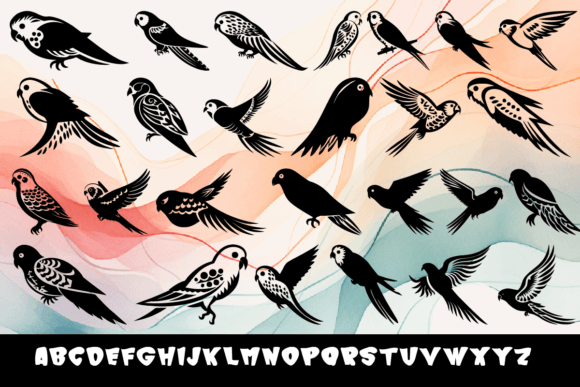
Cute Bird Font: Add a Delightful Touch to Your Designs with Adorable Bird Dingbats
Are you looking for a unique and charming way to elevate your creative projects? Look no further than the Cute Bird Font, a delightful set of 26 bird-themed dingbats that will bring joy and whimsy to your designs. In this article, we’ll explore the features and benefits of this adorable font set, and how it can be used to add a touch of personality to your work.
What is Cute Bird Font?
Features of Cute Bird Font
- 26 Charming Bird Designs: Each letter from A to Z features a unique and adorable bird design, perfect for adding a personal touch to your projects.
- Perfect for Various Projects: Use the Cute Bird Font for a variety of projects, including greeting cards, invitations, posters, and more.
The Cute Bird Font offers a range of benefits for designers and crafters, including:
- Unique and Eye-Catching Designs: The adorable bird designs are sure to capture attention and add a touch of personality to your projects.
- Versatility: The Cute Bird Font can be used for a wide range of projects, from digital designs to print materials.
The Cute Bird Font is perfect for designers and crafters looking to add a unique and charming touch to their projects. Whether you’re creating digital designs or print materials, this font set is sure to inspire and delight. Use it for:
- Greeting Cards: Add a personal touch to your greeting cards with adorable bird designs.
- Invitations: Make your invitations stand out with charming bird-themed designs.
- Posters: Add a playful touch to your posters with the Cute Bird Font.
- Digital Designs: Use the font for digital designs, such as social media graphics and blog posts.